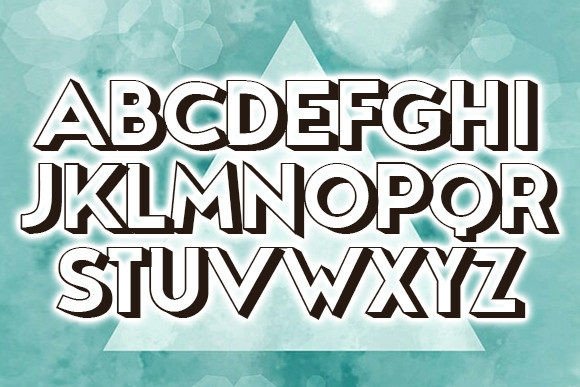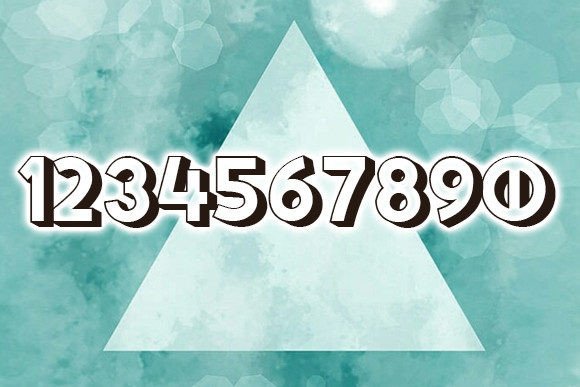
Elevate Your Designs with Delta Font: The Elegant 3D Solution
Are you tired of using the same old fonts in your designs? Look no further than Delta Font, the elegant 3D font that’s taking the design world by storm. With its sleek and sophisticated look, Delta is perfect for designers and crafters looking to add a touch of luxury to their work. In this article, we’ll explore the features and benefits of Delta Font, and show you how to use it to take your designs to the next level.
What is Delta Font?
Delta Font is a stunning 3D font that’s designed to add a touch of elegance to your designs. With its clean lines and sophisticated look, Delta is perfect for creating eye-catching posters, flyers, t-shirts, and more. Whether you’re a professional designer or a crafty DIY enthusiast, Delta Font is sure to impress.
Key Features of Delta Font
- Elegant 3D Design: Delta Font features a sleek and sophisticated 3D design that’s sure to turn heads.
- High-Quality Rendering: The font is designed to render beautifully at any size, making it perfect for use on a variety of mediums.
- Versatile: Delta Font can be used on a wide range of design projects, from posters and flyers to t-shirts and more.
Benefits of Using Delta Font
So why choose Delta Font for your designs? Here are just a few benefits of using this amazing font:
- Adds a Touch of Luxury: Delta Font’s elegant 3D design adds a touch of luxury to any design project.
- Stand Out from the Crowd: With its unique and sophisticated look, Delta Font is sure to help your designs stand out from the crowd.
- Increases Engagement: The font’s eye-catching design is sure to grab attention and increase engagement with your audience.
- Perfect for Branding: Delta Font is perfect for use in branding and advertising, where a sophisticated and elegant look is essential.
Design Ideas Using Delta Font
Delta Font is versatile and can be used on a wide range of design projects. Here are a few ideas to get you started:
- Posters: Use Delta Font to create eye-catching posters for events, promotions, and more.
- Flyers: Add a touch of elegance to your flyers with Delta Font, perfect for advertising and marketing campaigns.
- T-Shirts: Use Delta Font to create stunning t-shirt designs that are sure to turn heads.
- Logos and Branding: Delta Font is perfect for use in logos and branding, where a sophisticated and elegant look is essential.
Delta Font is an elegant 3D font that’s sure to take your designs to the next level. With its sleek and sophisticated look, Delta is perfect for designers and crafters looking to add a touch of luxury to their work. Whether you’re creating posters, flyers, t-shirts, or more, Delta Font is the perfect choice. So why wait? Download Delta Font today and start elevating your designs!